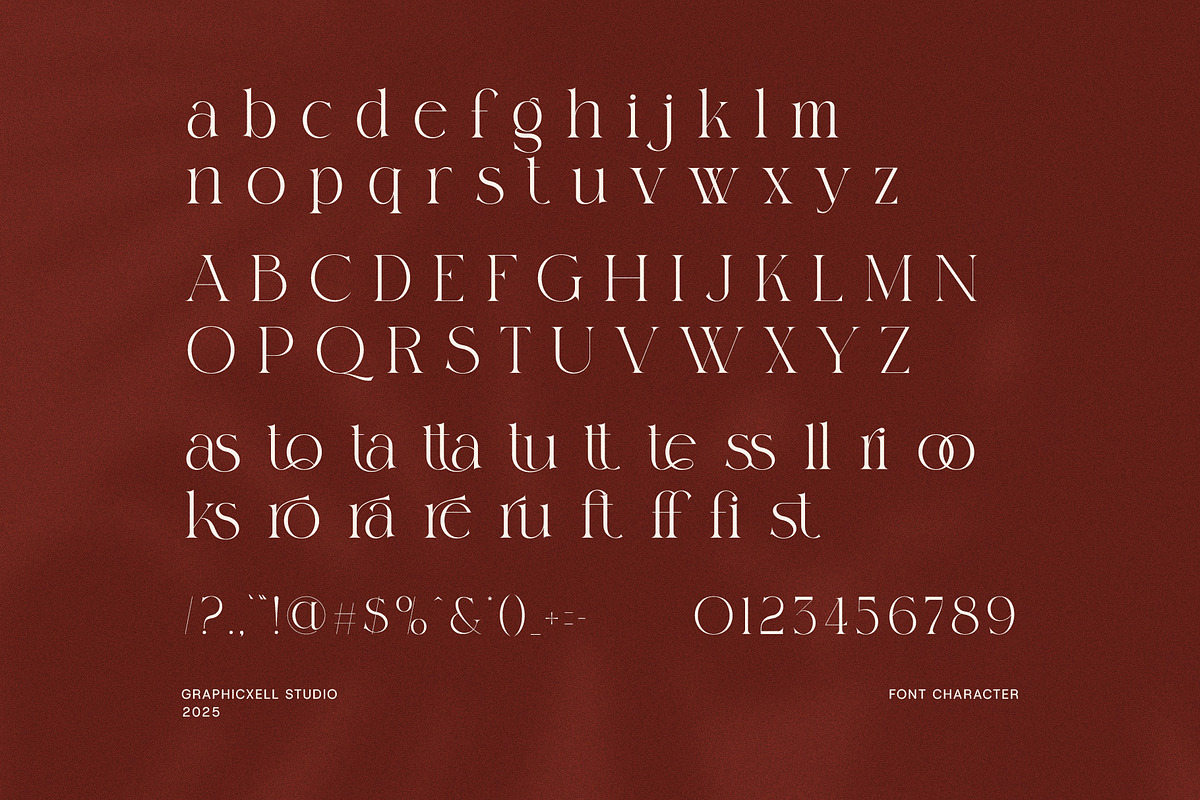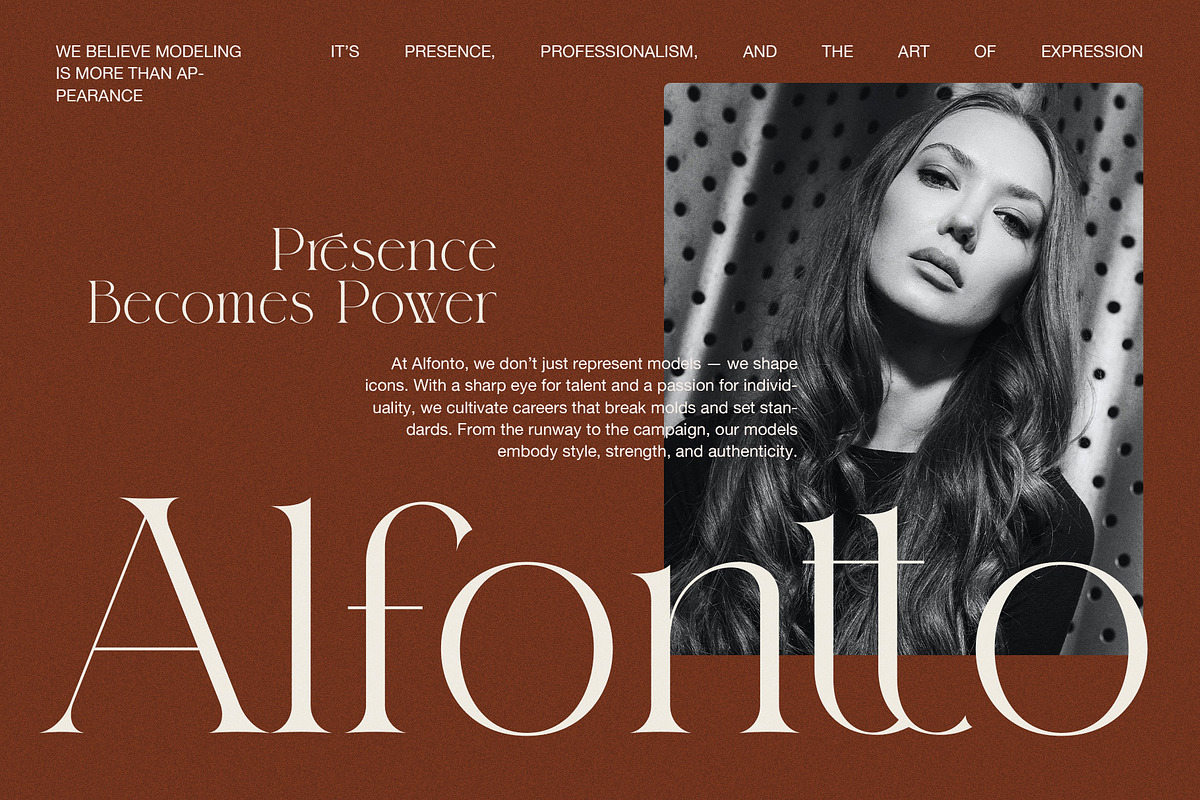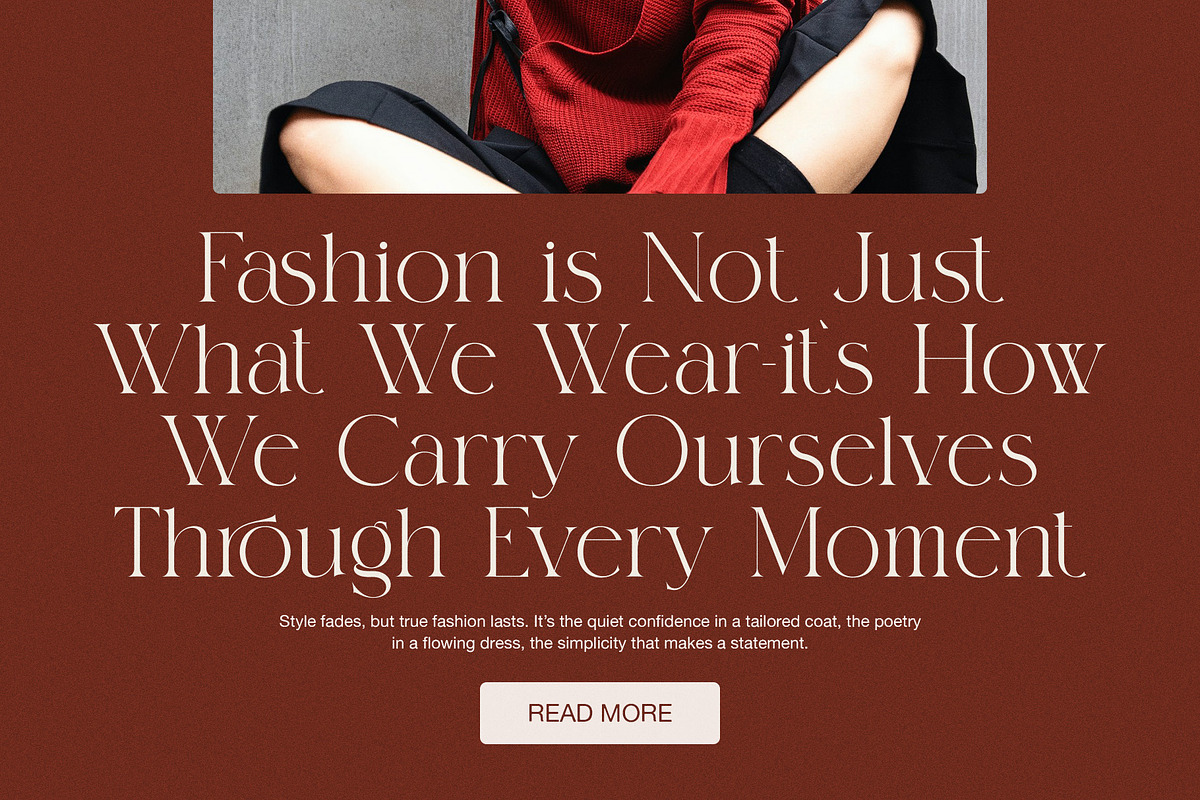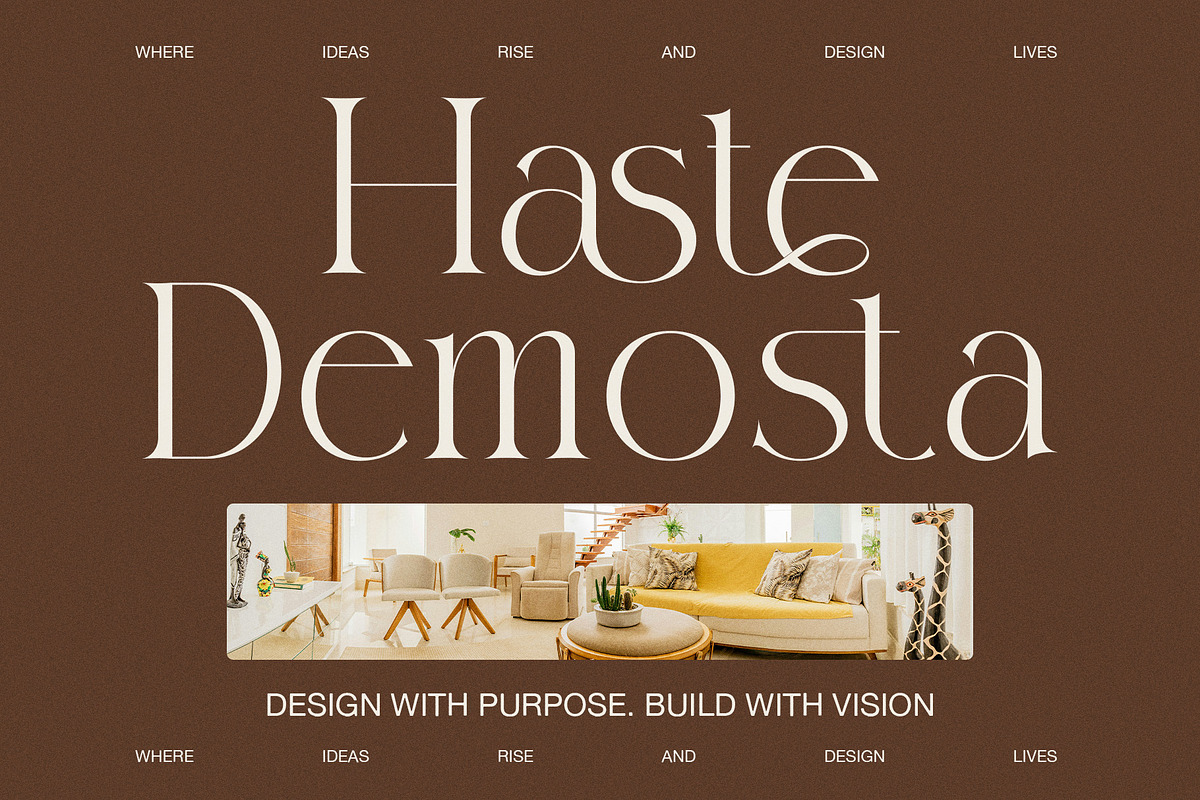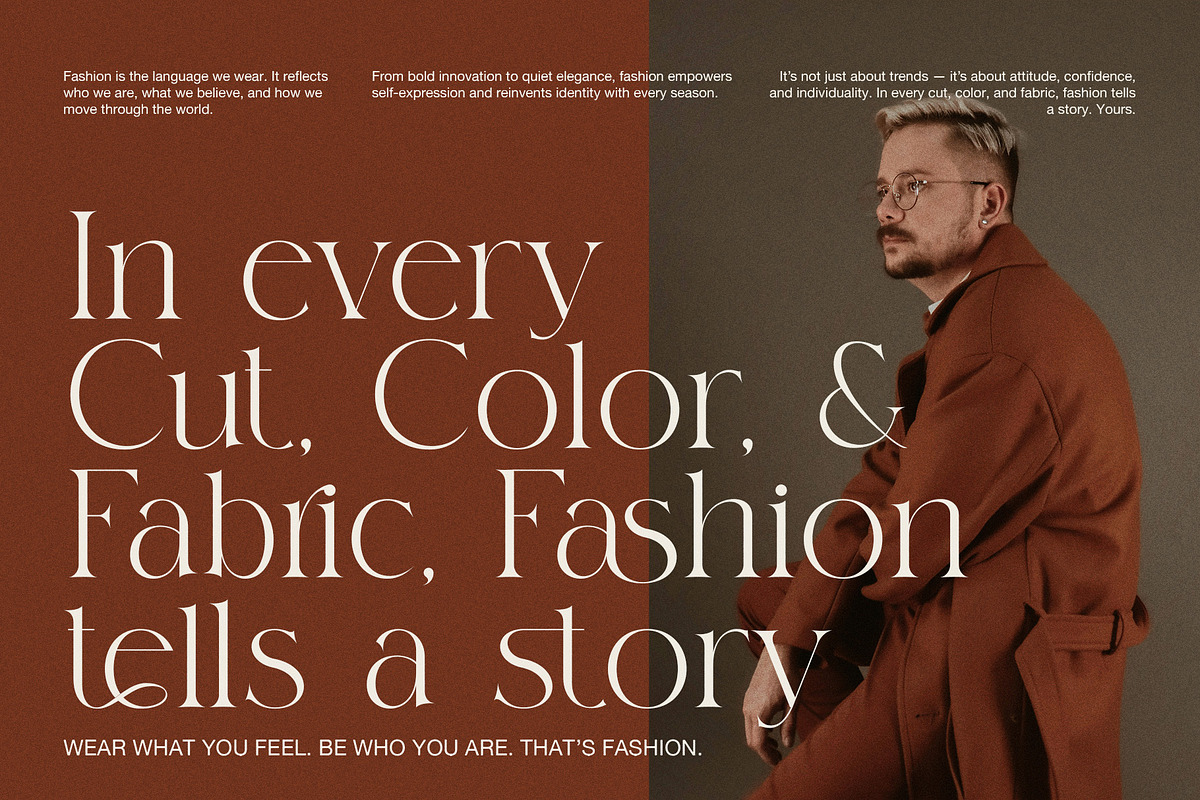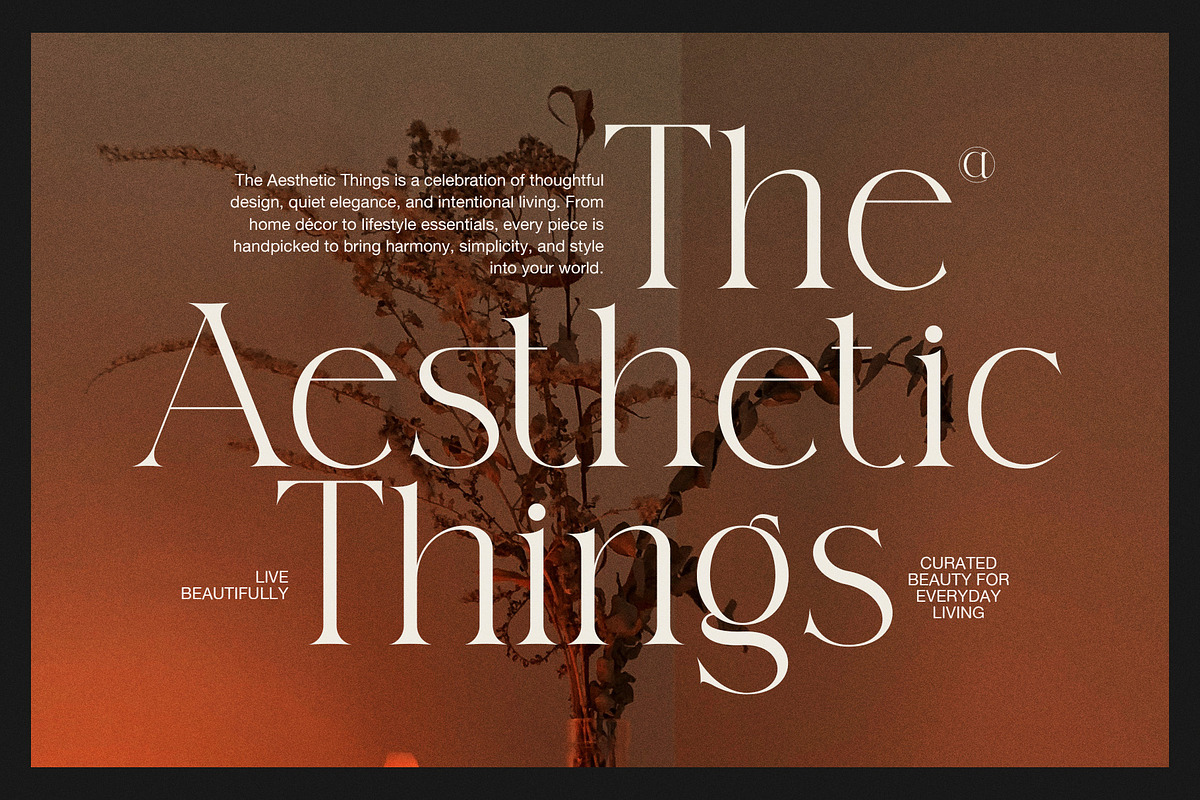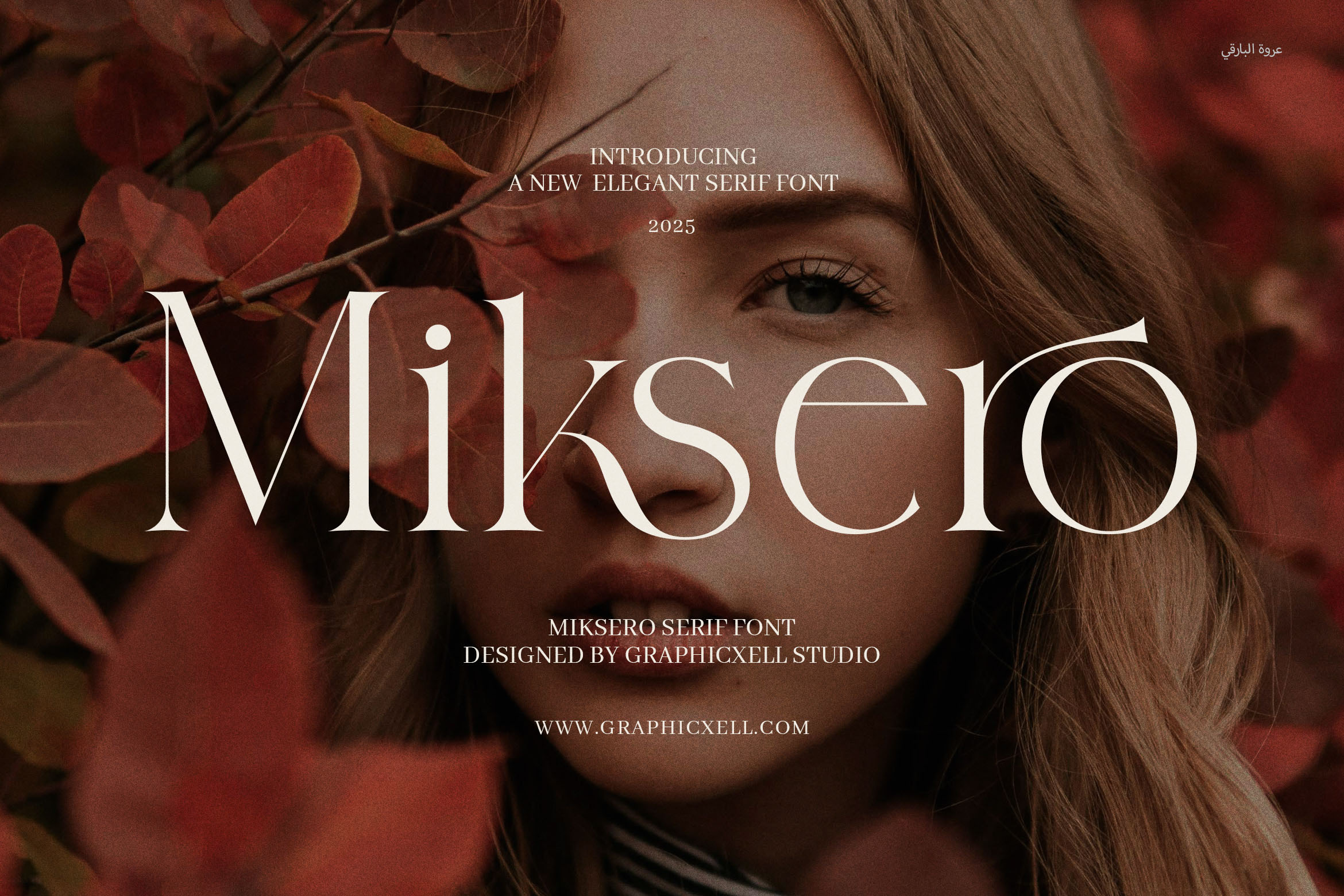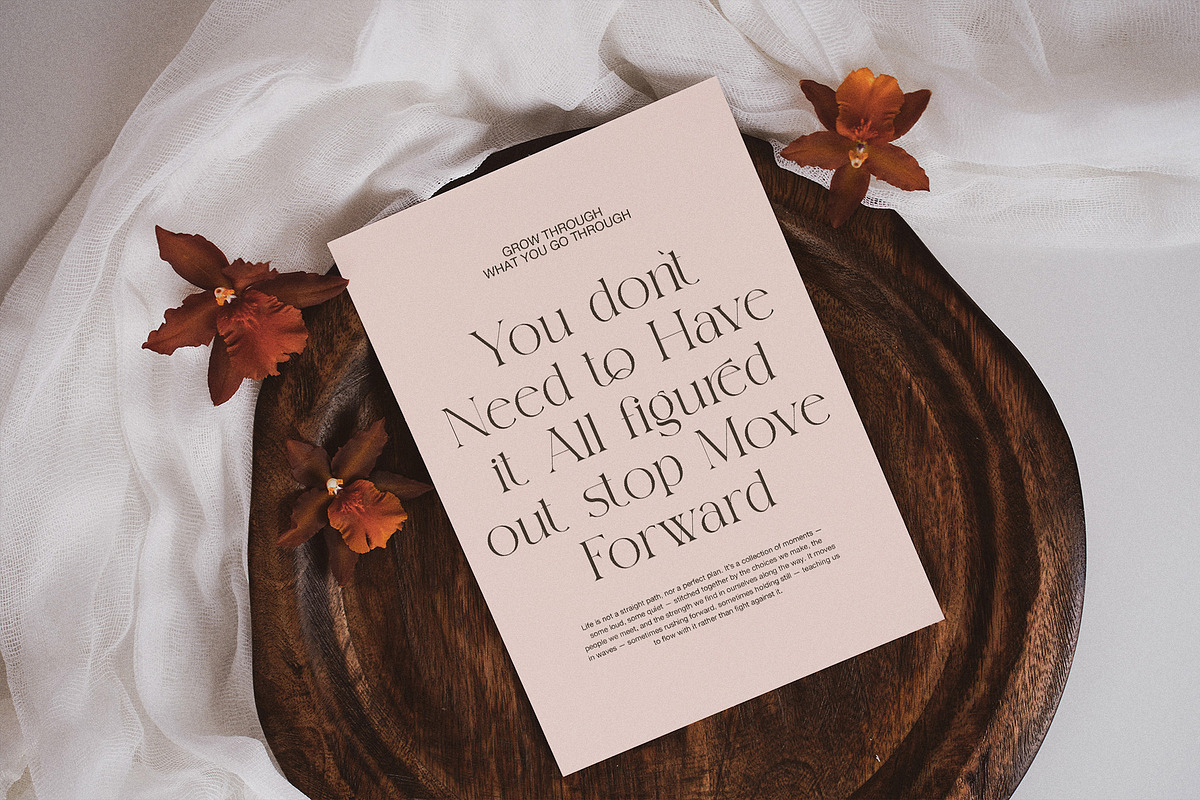
Miksero Elegant Serif Font
Introducing Miksero Elegant Serif, a modern serif font that redefines sophistication with a contemporary twist. Carefully designed to blend classic charm with minimalist elegance, Miksero is the perfect typeface for designers and brands that want to project refinement, confidence, and creativity.
With its high-contrast strokes, smooth curves, and sharp yet graceful serifs, Miksero stands out as a premium display font that is both versatile and timeless. Each letterform is thoughtfully crafted to capture attention without overpowering, making Miksero ideal for high-end branding, editorial designs, logo creation, and luxury product packaging.
Miksero’s beauty lies in its balance—the font feels both structured and expressive, clean yet charismatic. It evokes a sense of quiet luxury, perfect for modern design projects that aim to look professional, artistic, and elevated.
Key Features of Miksero Elegant Serif:
Elegant high-contrast serif style with a modern silhouette
Unique letterforms that blend classic details with contemporary structure
Full set of uppercase & lowercase characters, numbers, punctuation, and multilingual support
Designed for visual clarity and elegance across digital and print media
deal for fashion branding, boutique packaging, magazine layouts, and more
Why Choose Miksero? Miksero Elegant Serif was created for creatives who want to design with intention. Its refined personality makes it a natural fit for fashion editorials, beauty and lifestyle branding, wedding stationery, Instagram graphics, and minimalist websites. This font isn’t just about readability—it’s about creating a feeling. When you use Miksero, you’re not just writing words—you’re curating an experience.
From bold headlines to delicate product labels, Miksero adapts effortlessly to a range of applications. Its high-contrast design draws the eye, while the graceful curves add warmth and sophistication. It’s the type of font that elevates your entire design without needing extra embellishments.
Elegant logos and visual identities
Fashion, beauty, and lifestyle branding
Magazine headlines and editorial layouts
Wedding invites and stationery design
Luxury product labels and boutique packaging
Website headers, banners, and social media content
Whether you're a graphic designer looking for a sophisticated typeface for your next branding project, or a creative entrepreneur developing high-end visuals for your brand, Miksero delivers style, substance, and versatility. It has the poise of a classic serif with the freshness of modern aesthetics—a true design essential for upscale visuals.
Miksero Elegant Serif Font gives your words a voice that’s confident, classy, and compelling. Step into a new era of typography where elegance meets modern creativity. With Miksero, your designs won’t just be seen—they’ll be remembered.